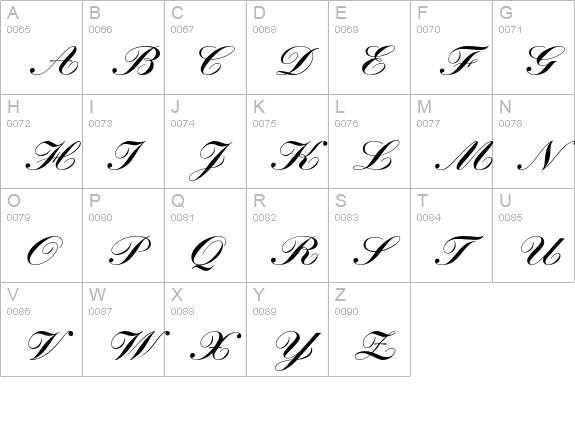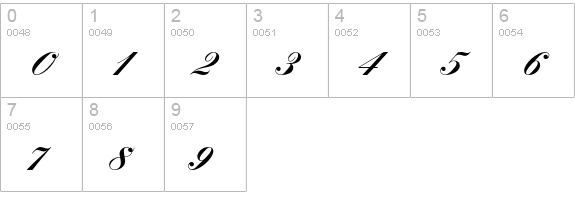
Kuenstler Script Black is a maximum-weight, dramatic variant in the Kuenstler typeface family \xE2\x80\x94 well suited to maximum-impact headlines, posters, and packaging.
Kuenstler Script Black is a stunningly elegant font that exudes sophistication and charm. Its intricate details and flowing strokes give any text a timeless and luxurious feel. The bold weight of this font makes it perfect for headlines, logos, and other design projects where you want to make a statement. The beauty of Kuenstler Script Black is that it effortlessly combines traditional calligraphy with a modern twist, making it versatile and unique. Whether you're designing wedding invitations, branding materials, or signage, this font will add a touch of class to your creations. Best of all, Kuenstler Script Black is available for free download at FontsMarket.com. This means you can easily access this exquisite font and incorporate it into your designs without any cost. Don't miss out on the opportunity to elevate your projects with the timeless beauty of Kuenstler Script Black.